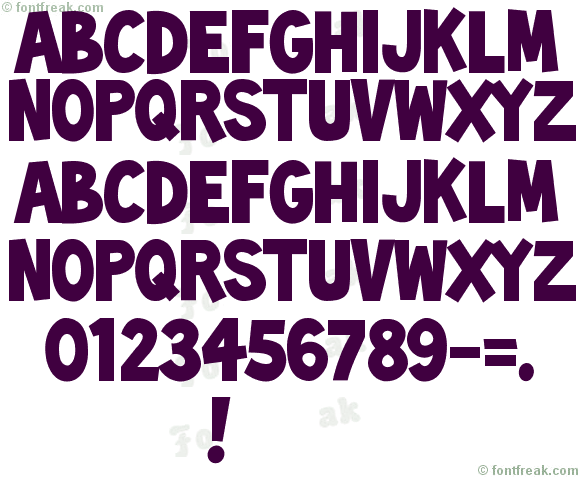
ToonishRegular
About ToonishRegular
ToonishRegular is a captivating display font created by Everything Burns, designed specifically to add a playful and whimsical touch to any project. This font falls into the decorative category, making it ideal for applications that require a touch of creativity and flair. With its bold stroke weight and unique character shapes, ToonishRegular commands attention while remaining easy to read. The letters feature rounded edges and a slightly irregular appearance, contributing to its fun and lighthearted aesthetic. The spacing is thoughtfully designed, allowing for clear legibility even at larger sizes, which enhances its usability across various contexts.
This font is particularly well-suited for a range of creative applications. It shines in settings like children's book covers, where its playful nature can attract young readers. Additionally, it can be effectively used in party invitations, bringing a joyful vibe to celebrations. Restaurant menus can also benefit from ToonishRegular, especially for casual dining establishments looking to convey a friendly atmosphere. Furthermore, this font is a great choice for comic book titles or graphic design projects that aim to evoke a sense of fun and adventure.
The target audience for ToonishRegular includes graphic designers, small business owners, and content creators who are looking to inject personality into their work. By utilizing this font, they can capture the essence of creativity and engage their audience more effectively.
What sets ToonishRegular apart is its ability to balance boldness with approachability, making it a versatile choice for various design needs. With the ToonishRegular font free download available, anyone can easily incorporate this delightful typeface into their projects, enhancing their visual storytelling with a unique twist.